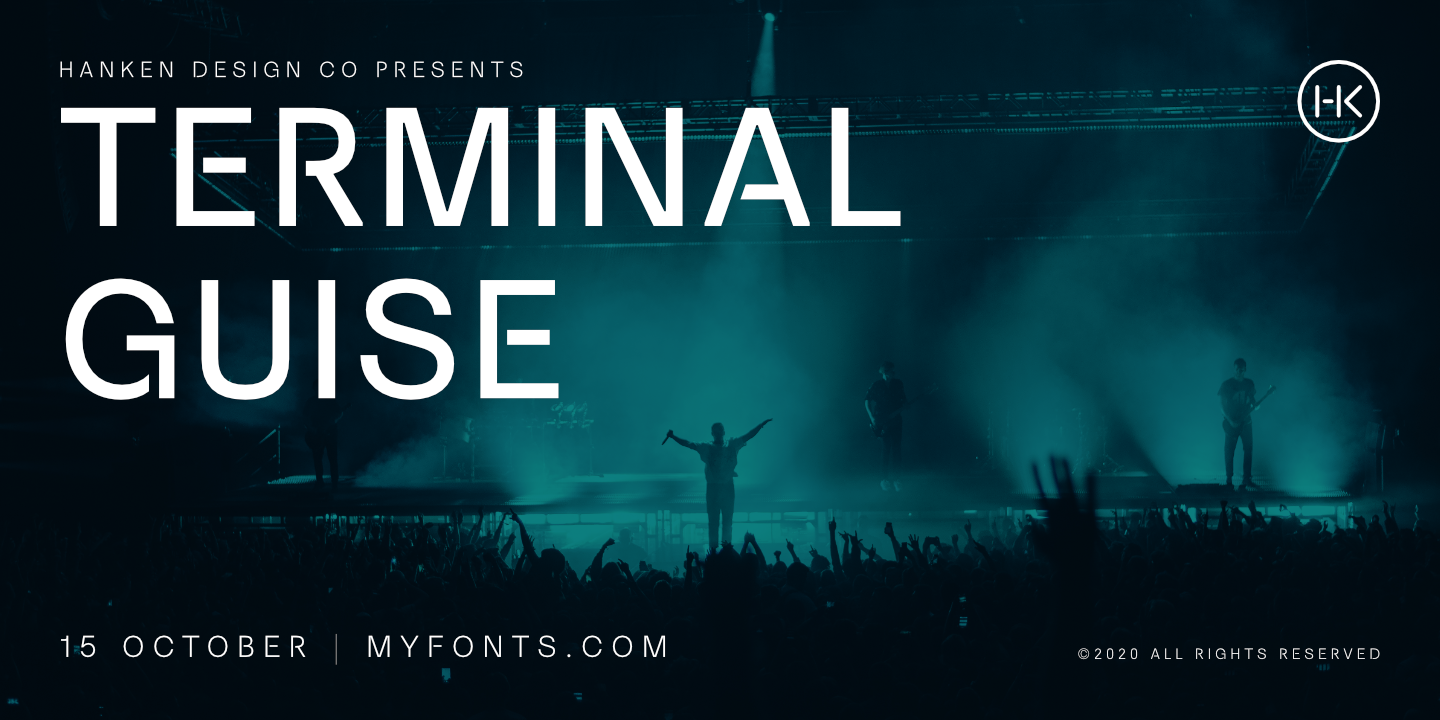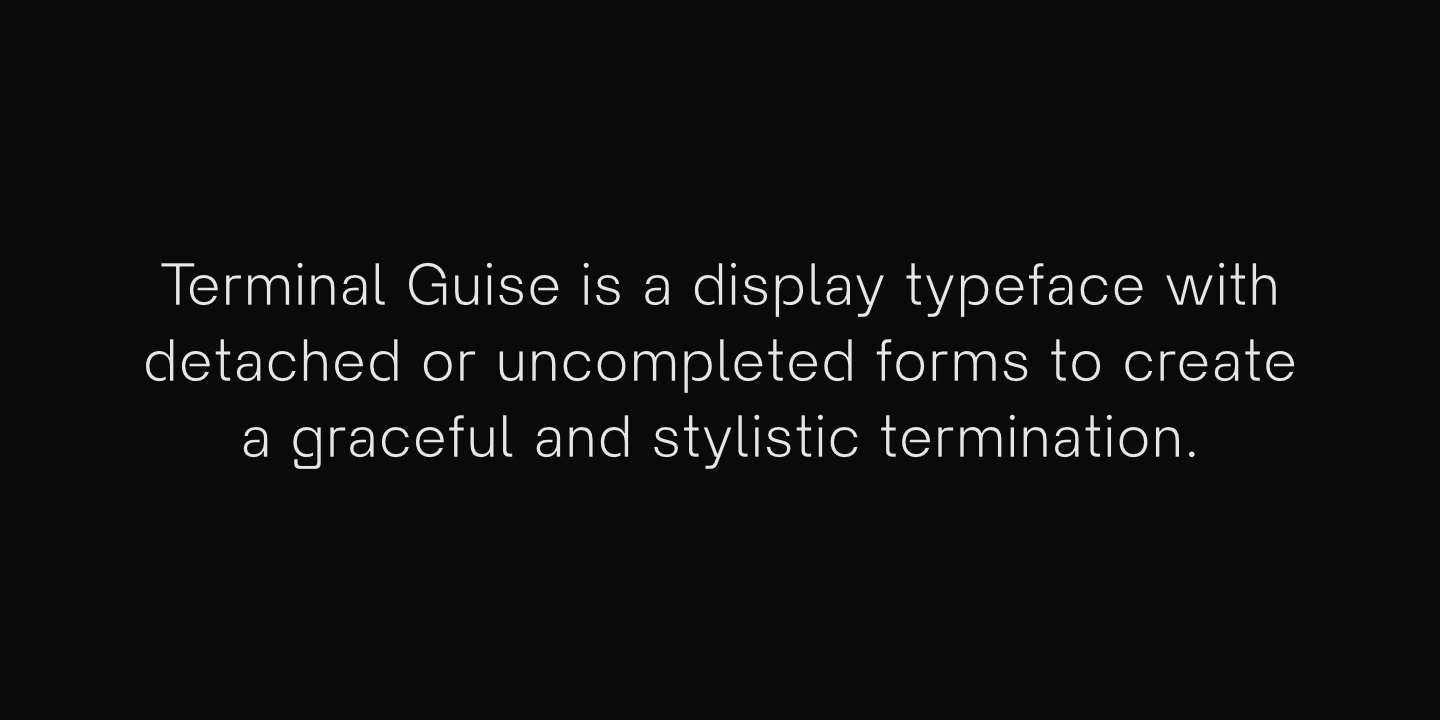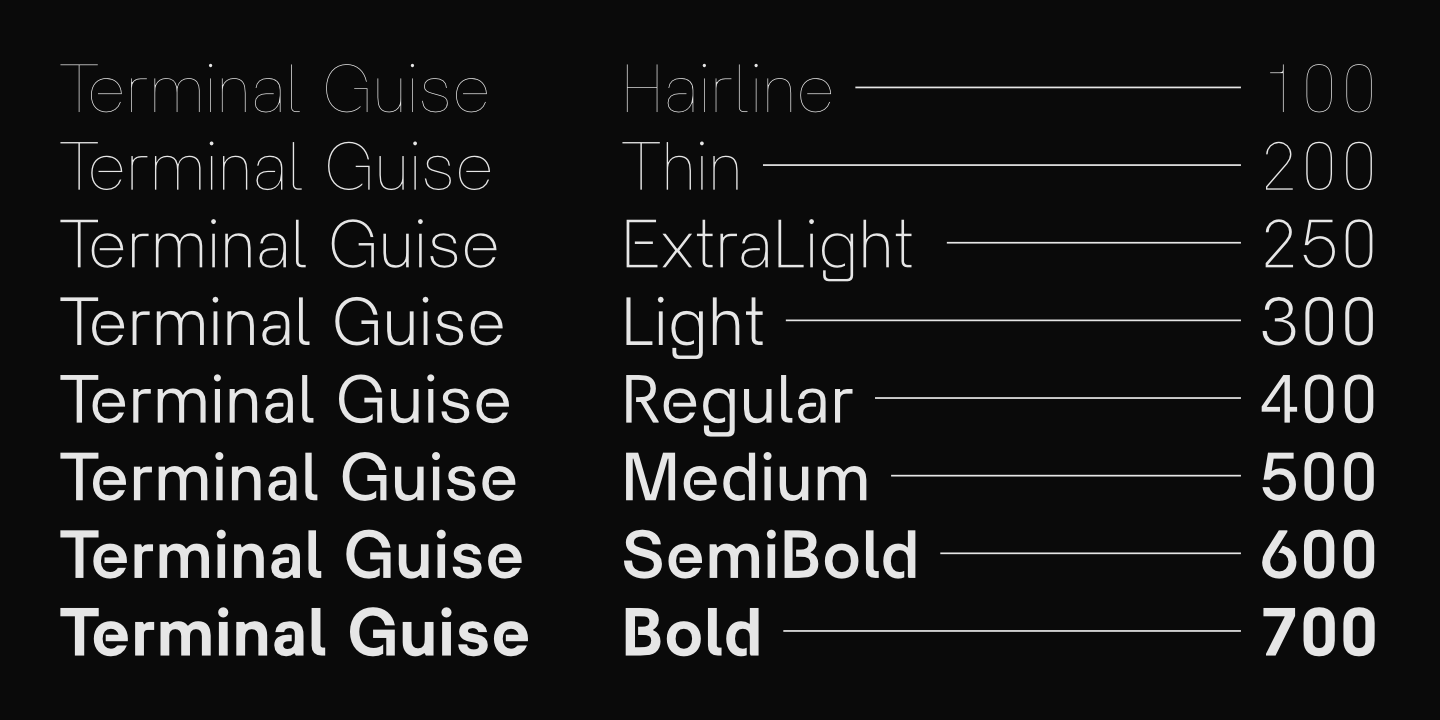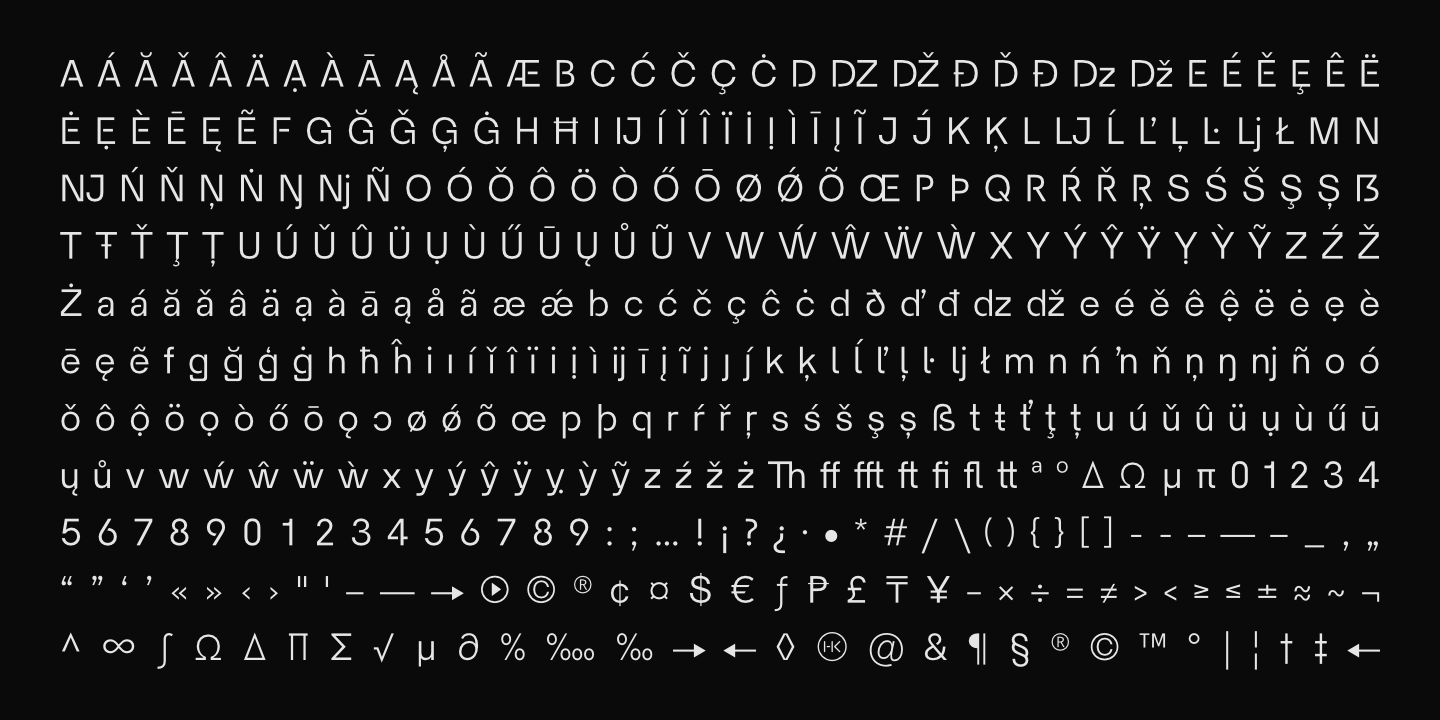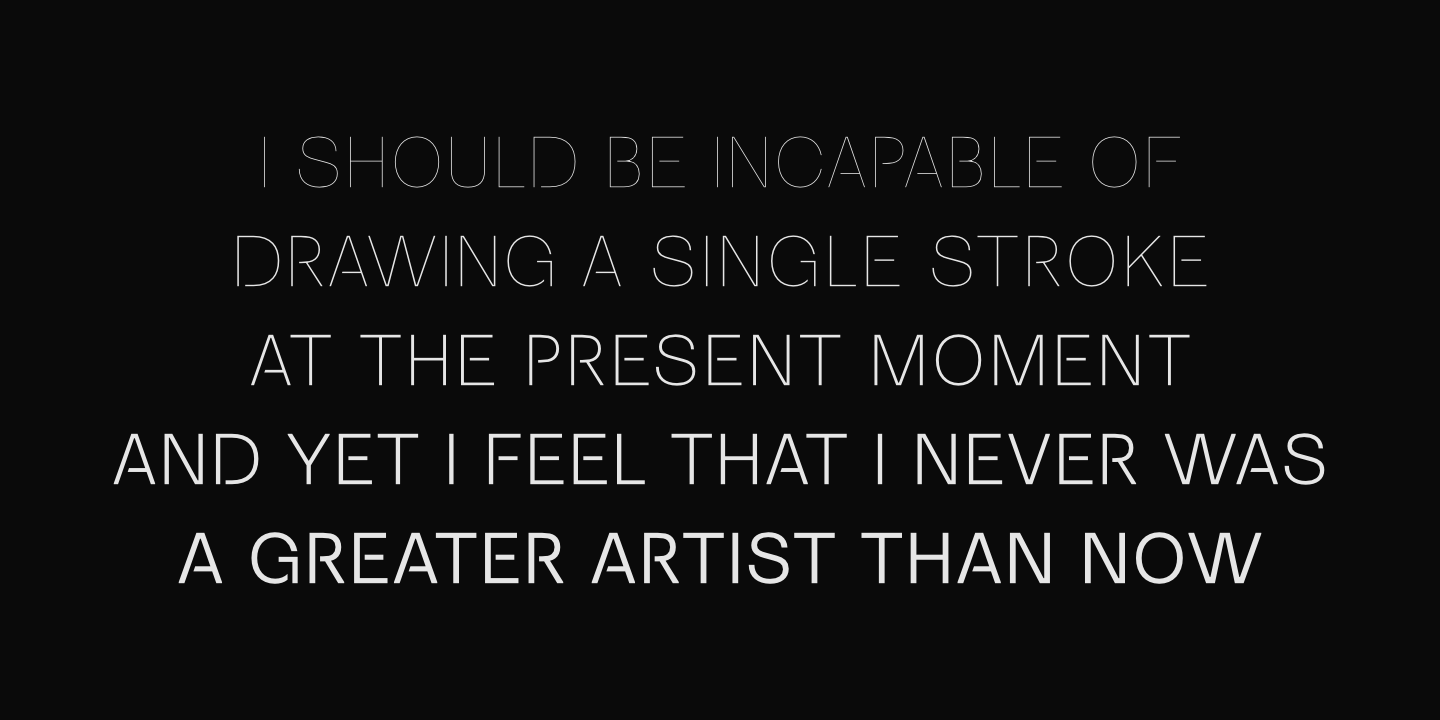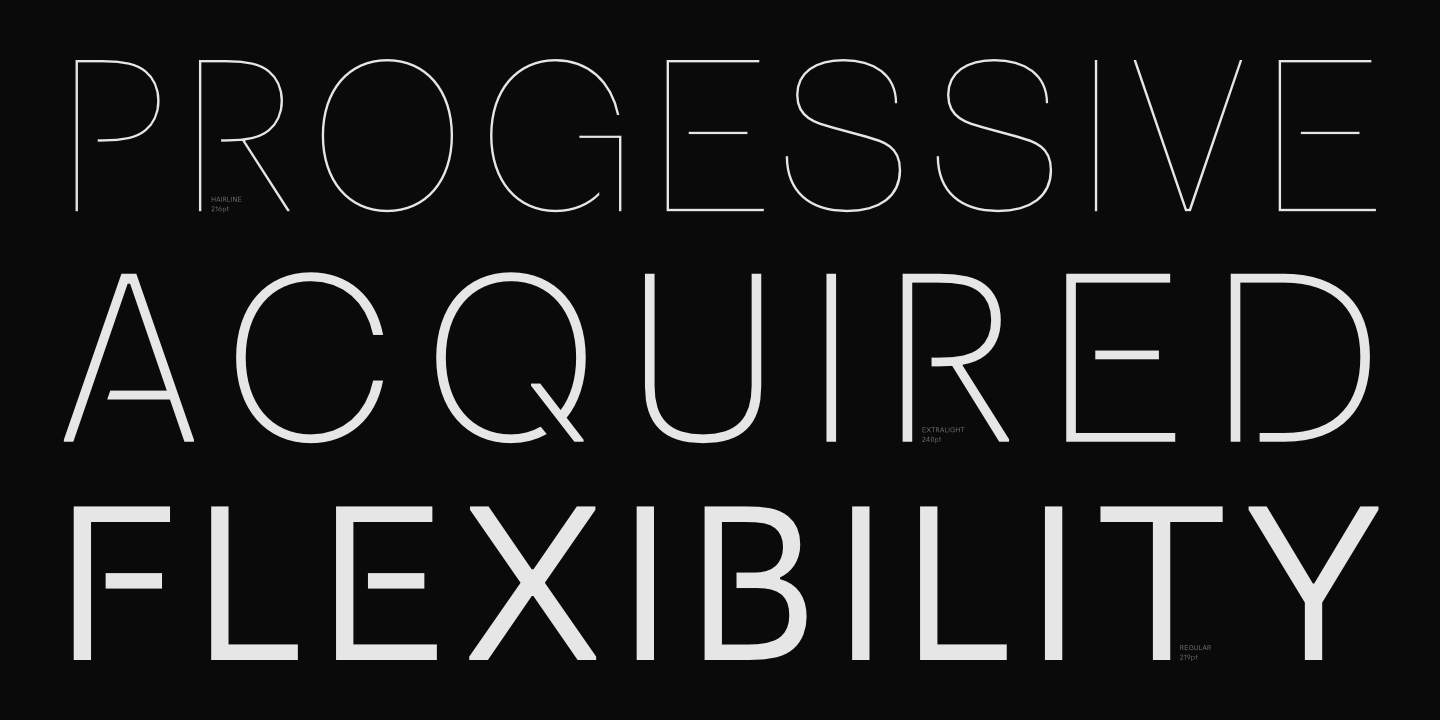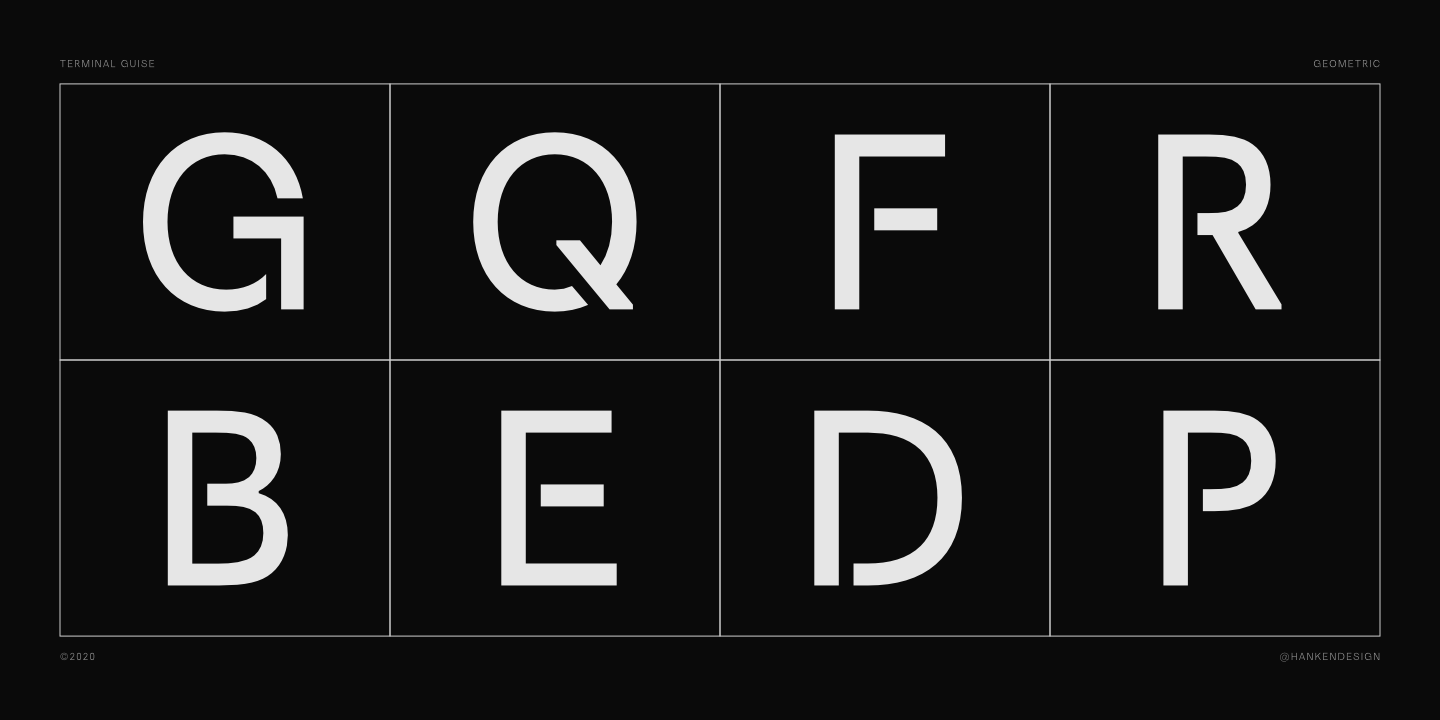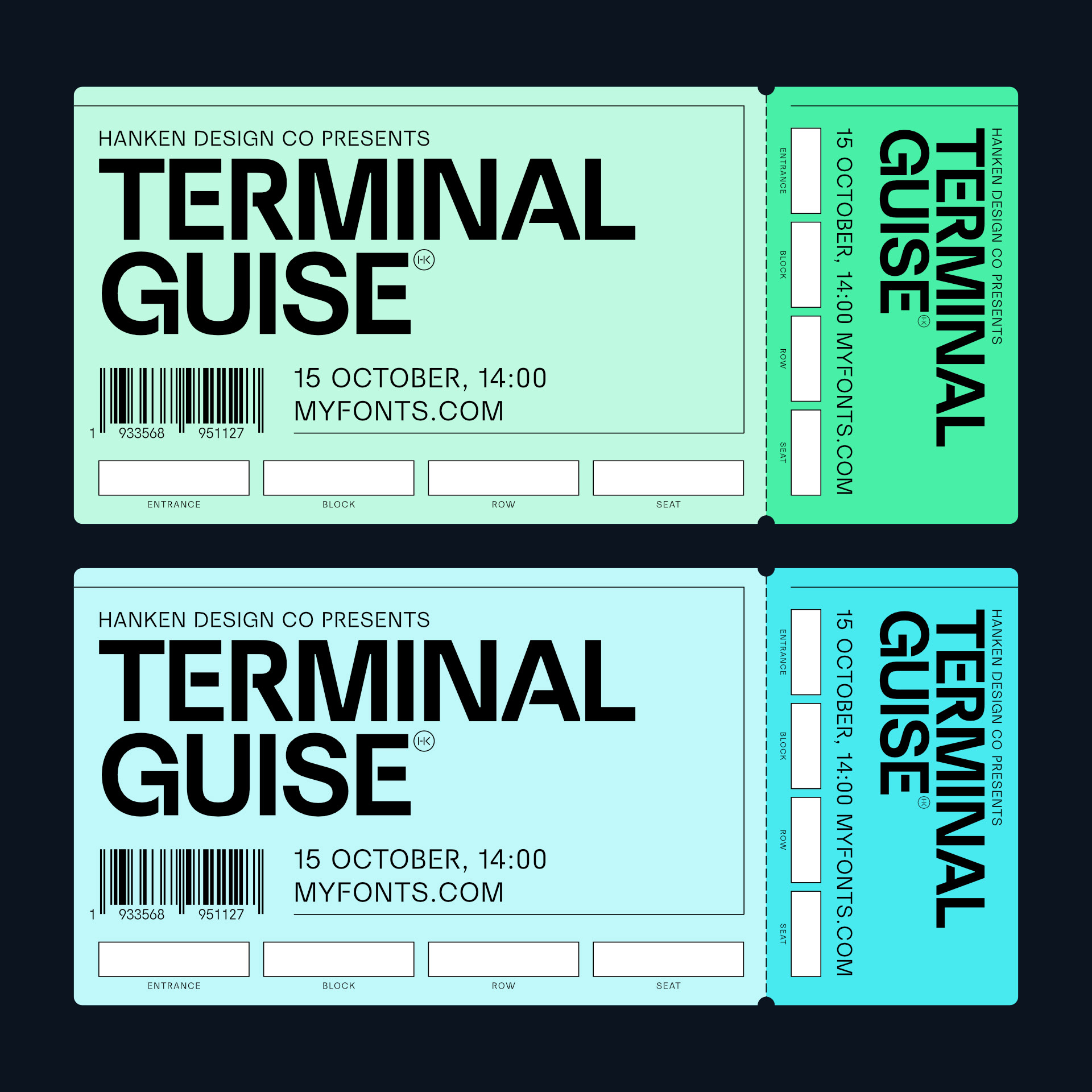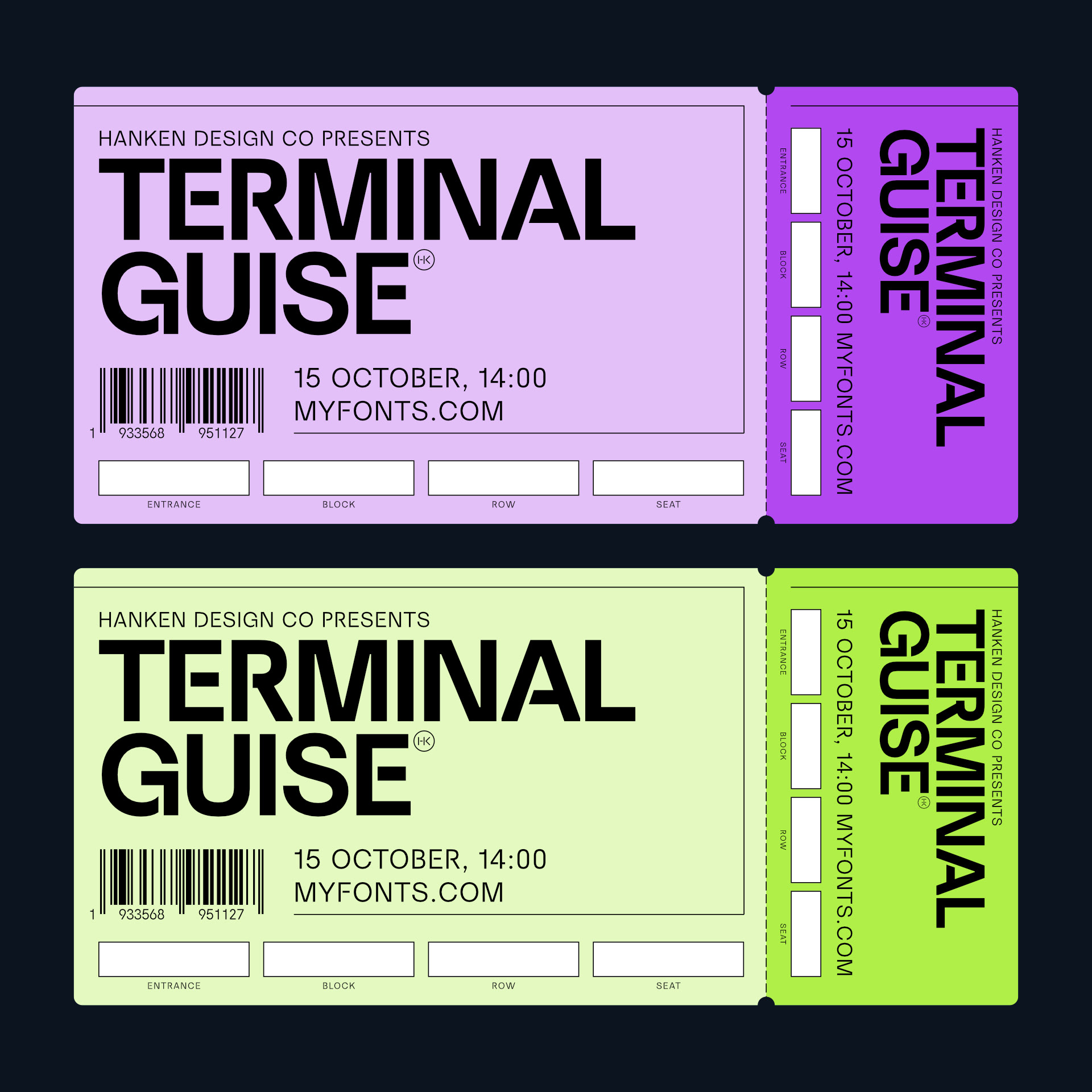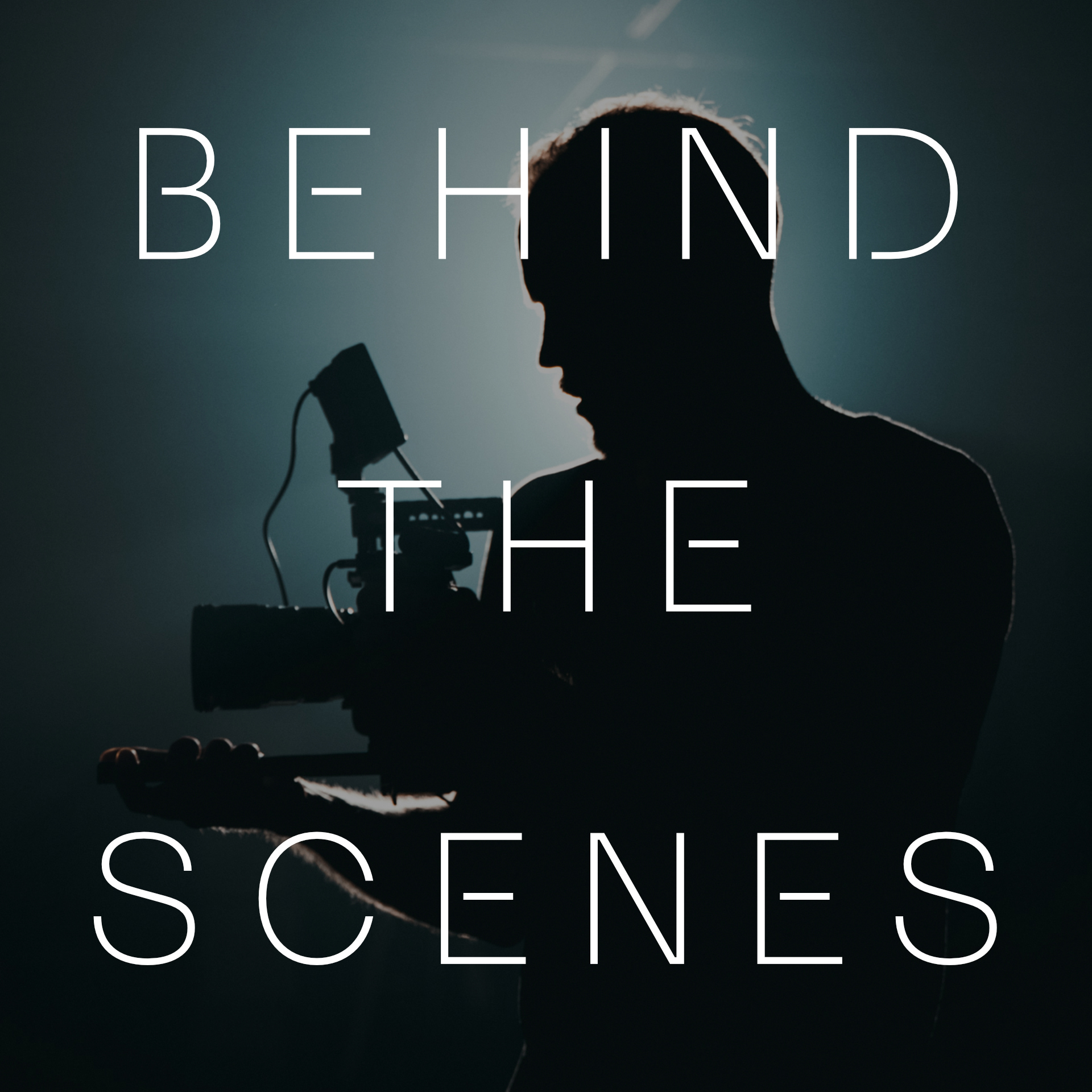
Terminal Guise is a display typeface with detached or uncompleted forms to create a graceful and stylistic termination.
Design and Development: Alfredo Marco Pradil
Foundry: Hanken Design Co.
Glyphs: 450+ per style
Styles: 8
Class: Sans Serif